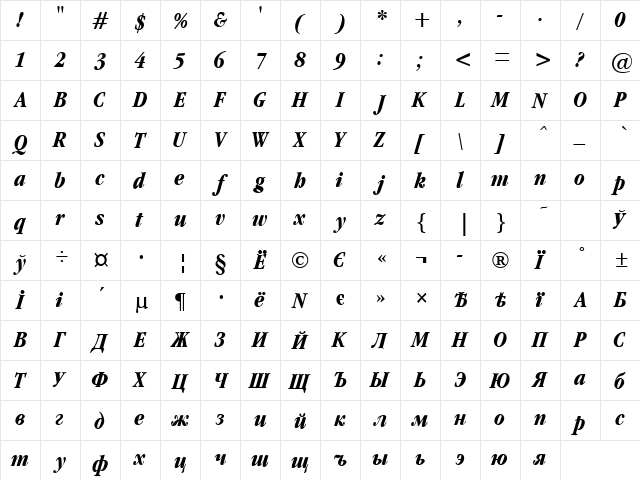
Garamondcond Bold Italic Font Preview
Design Context for Garamondcond Typeface
Garamondcond takes a measured approach to typography — its balanced proportions and neutral character make it a reliable workhorse for both digital and print work. Its italic angle brings a sense of urgency and motion to the letterforms. The heavy weight commands attention and anchors typographic hierarchies. Its narrow stance lets it pack a punch even in space-constrained designs.
Pro Tip: Try Garamondcond for annotation and caption copy alongside an upright companion — the contrast in angle creates a dynamic but ordered typographic system.